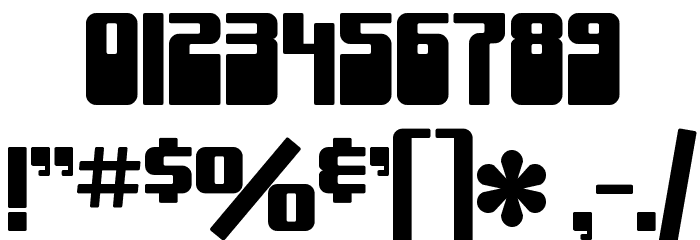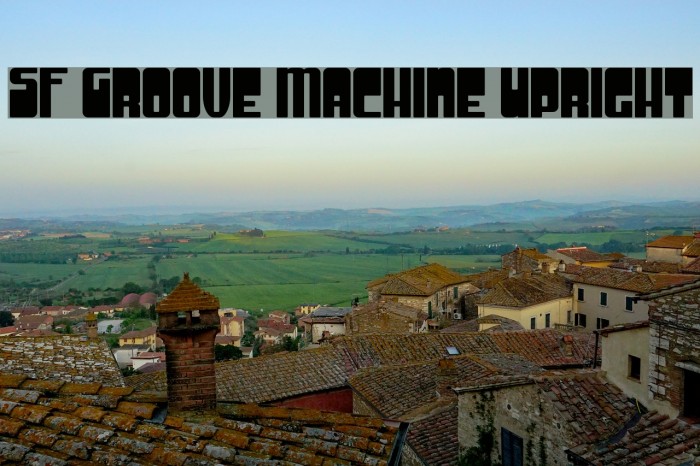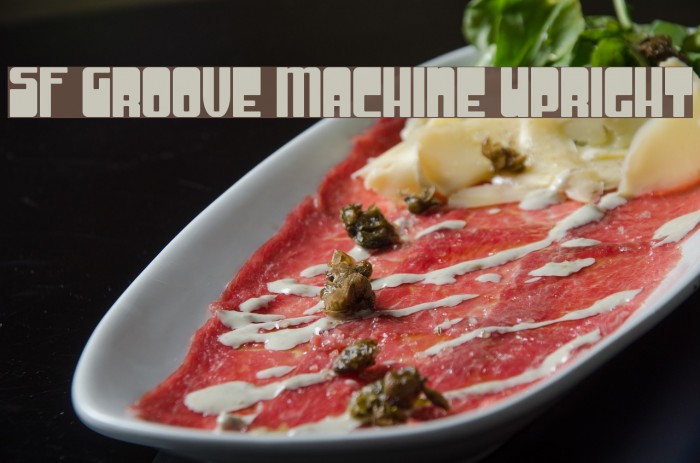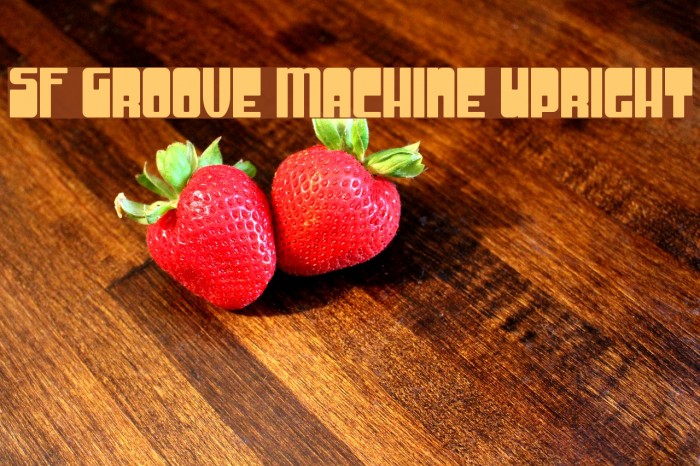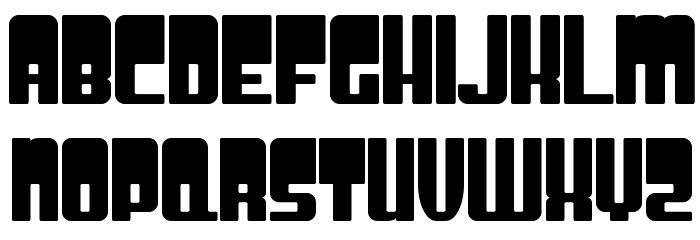
SF Groove Machine Upright Font
SF Groove Machine Upright Description
This bold, geometric typeface features a strong, industrial aesthetic with its blocky, angular letterforms. The characters are uniformly wide, creating a consistent and impactful visual presence. The uppercase and lowercase letters maintain a similar structure, emphasizing the font's cohesive design. Numbers and special characters are crafted with the same boldness, ensuring they stand out prominently. The font's thick strokes and minimal contrast make it ideal for attention-grabbing designs.
| Proposed Projects | Ideal for posters, logos, and branding projects that require a bold, impactful presence. |